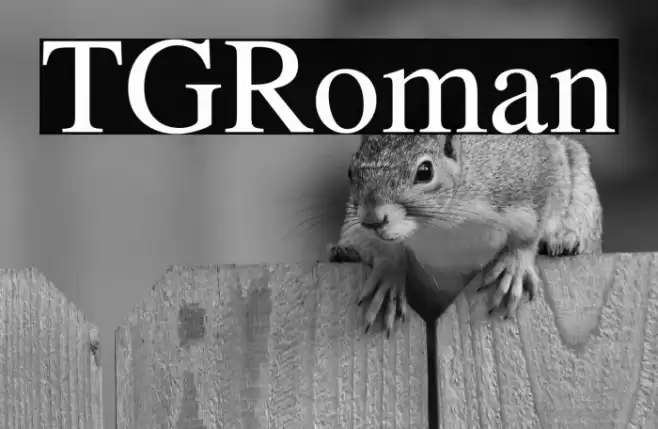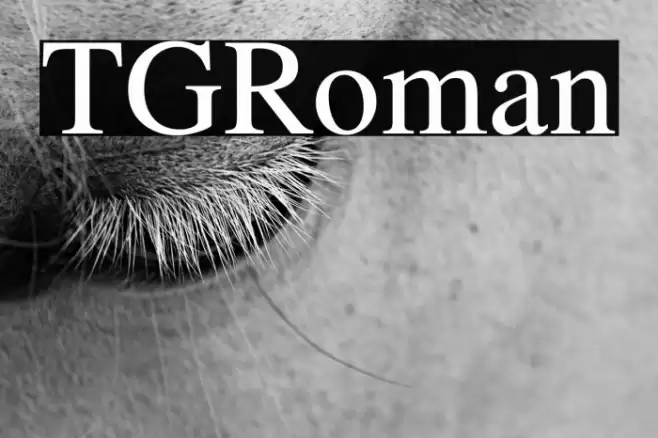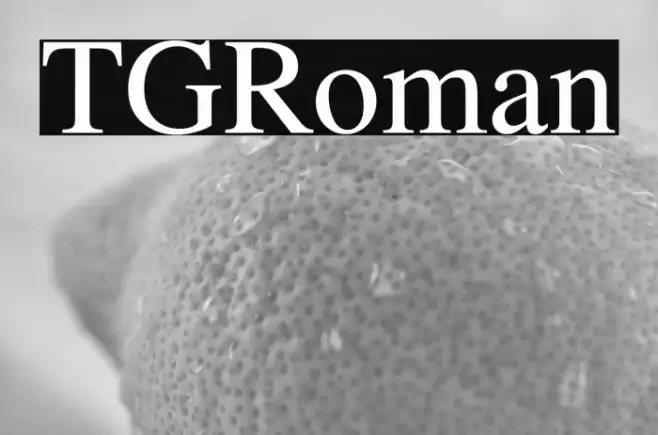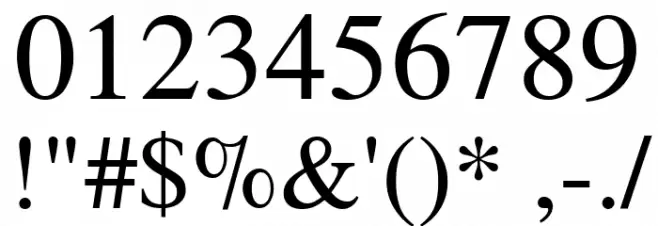
TGRoman Font
TGRoman Description
This font exudes a classic elegance with its well-defined serifs and balanced proportions. The uppercase letters are bold and commanding, while the lowercase letters maintain a refined and approachable appearance. The numerals are clear and distinct, making them suitable for both formal and casual contexts. The special characters are crafted with precision, ensuring consistency across all glyphs. This font's timeless style makes it versatile for a variety of design applications.
A classic serif font with elegant proportions and clear, distinct characters from Sans Serif fonts.
- Proposed Projects: Ideal for editorial design, book covers, formal invitations, and branding projects that require a touch of sophistication.
- Overall Style: Classic